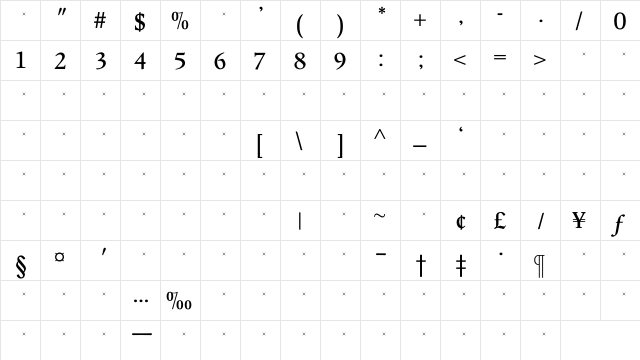
LeightonBoldTab Regular Font Preview
LeightonBoldTab Regular
Design Context for LeightonBoldTab Typeface
LeightonBoldTab offers clean, dependable letterforms without strong stylistic allegiance, making it a practical choice for designers who need flexibility. The heavy weight commands attention and anchors typographic hierarchies.
Pro Tip: Use LeightonBoldTab in both headline and body roles to test its range before committing to a single application.